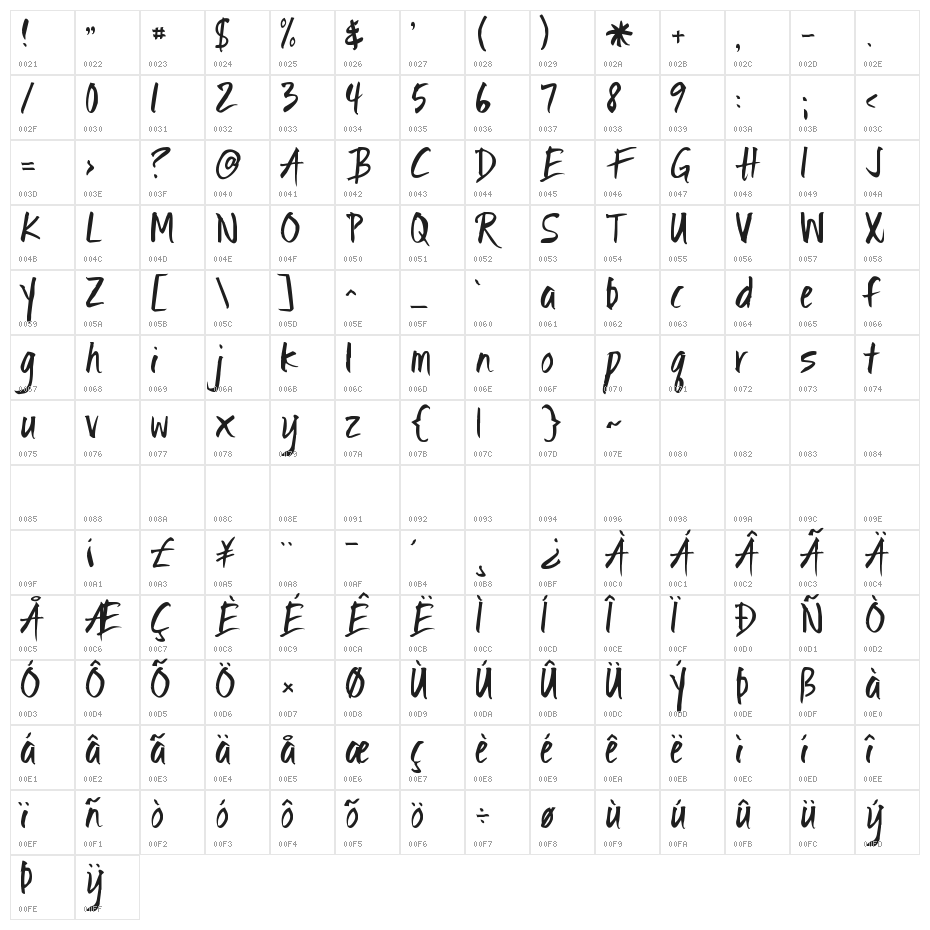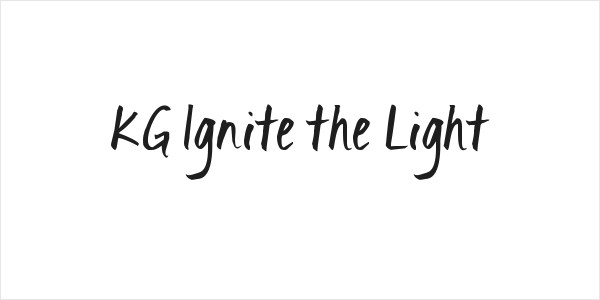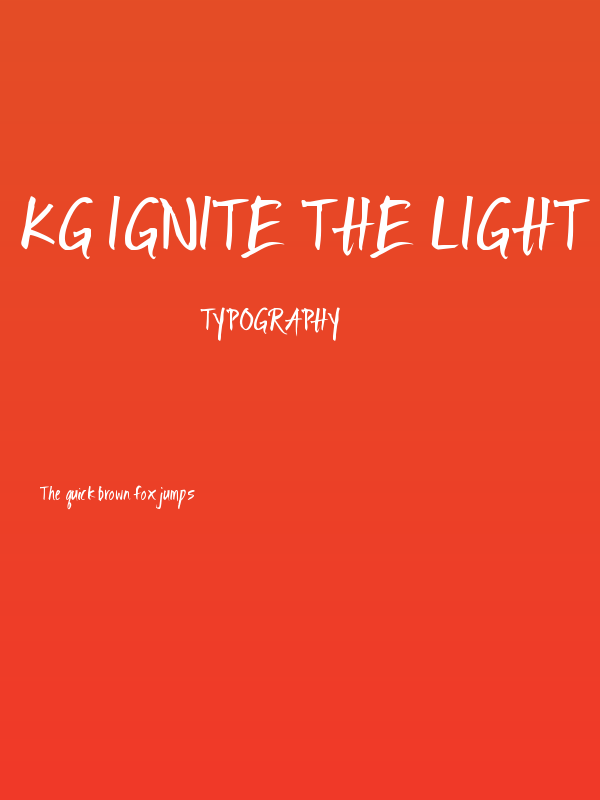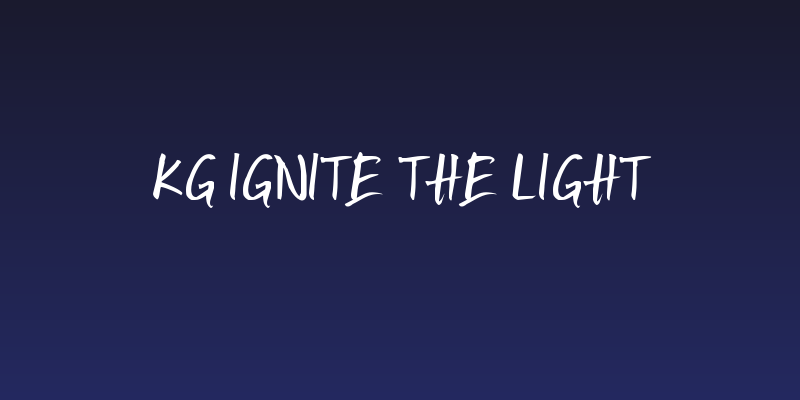
KG Ignite the Light Font
KG Ignite the Light Description
This font features a dynamic and energetic handwritten style, characterized by its bold and expressive strokes. The letters have a casual, yet artistic flair, with varying thickness that adds a sense of movement and personality. The uppercase and lowercase letters maintain a consistent style, with slightly exaggerated curves and angles that give the font a playful and informal appearance. The numerals and special characters are equally expressive, ensuring a cohesive look across all text elements. This font is ideal for projects that require a personal touch or a creative, informal vibe.
| Proposed Projects | Ideal for greeting cards, posters, social media graphics, and branding projects that require a personal and creative touch. |